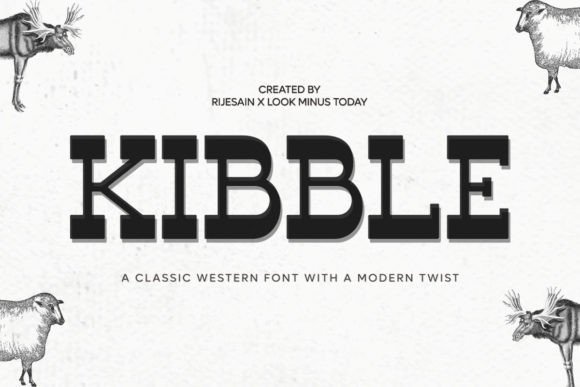
Prepare yourself to embark on a typographic journey with Kibble Font, an extraordinary slab serif font that oozes charm and character. Its captivating style is a harmonious blend of traditional craftsmanship and modern flair, resulting in a font that exudes both elegance and dynamism. Step into the world of Kibble and elevate your designs to new heights with its captivating aesthetics and versatility.
Experience the allure of Kibble's meticulously crafted letterforms, each stroke imbued with a sense of history and innovation. The bold serifs and clean lines create a visual symphony that dances across your designs, demanding attention and admiration. Whether you're a seasoned designer or just starting your creative journey, Kibble's user-friendly nature makes it an ideal companion for a variety of projects.
With Kibble by your side, you'll discover a world of possibilities. Craft stunning logos that leave a lasting impression, create eye-catching branding materials that captivate your audience, or elevate your digital designs with a touch of sophistication and charm. Kibble's versatility knows no bounds, allowing you to effortlessly navigate various design landscapes.
Harness the power of Kibble to make a statement with your hat embroidery designs. Its bold and distinctive letterforms are perfectly suited to adorn hats, creating a personalized fashion statement that reflects your unique style. Let Kibble's timeless elegance and contemporary edge elevate your hat embroidery projects to new heights of creativity.